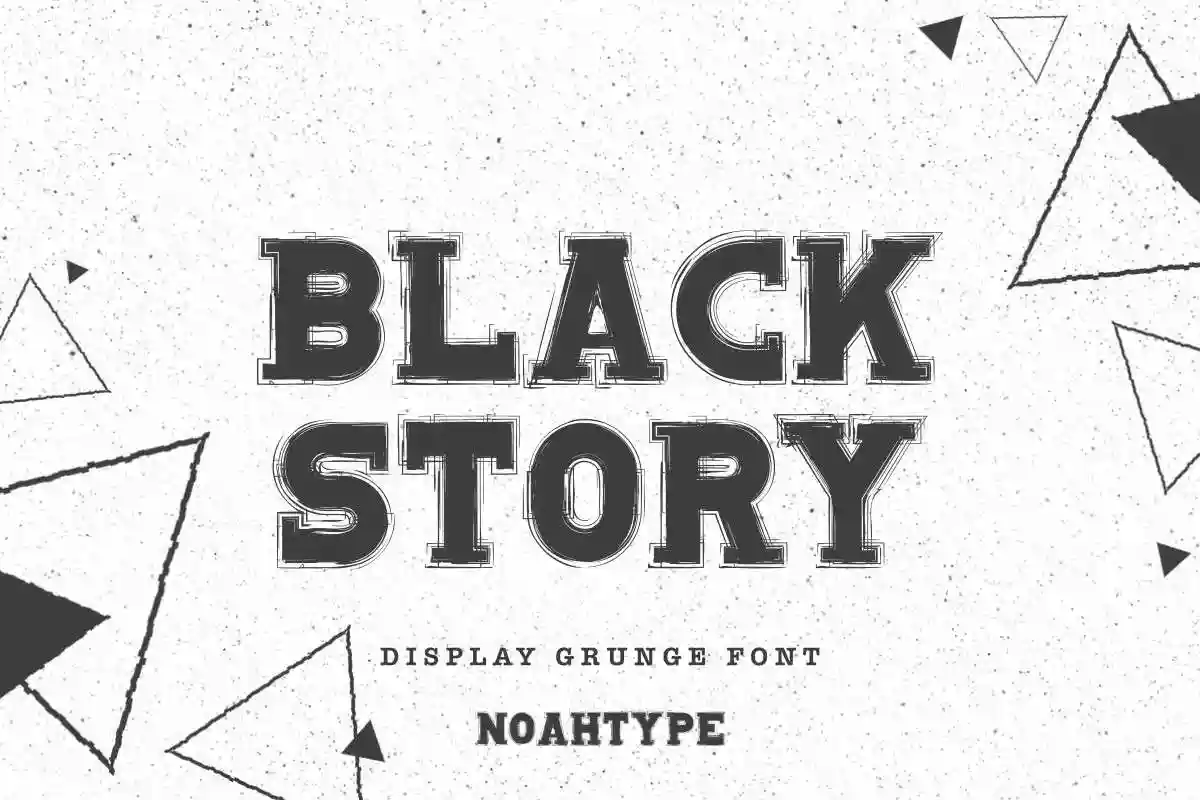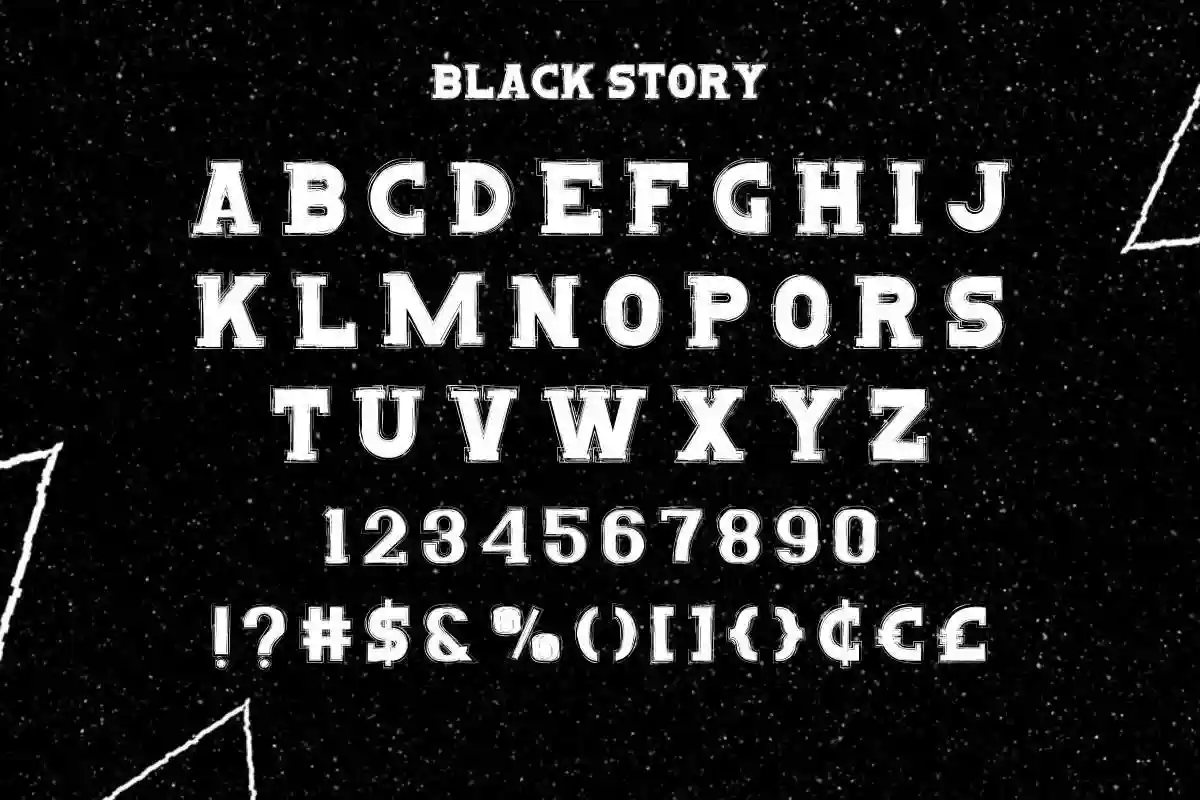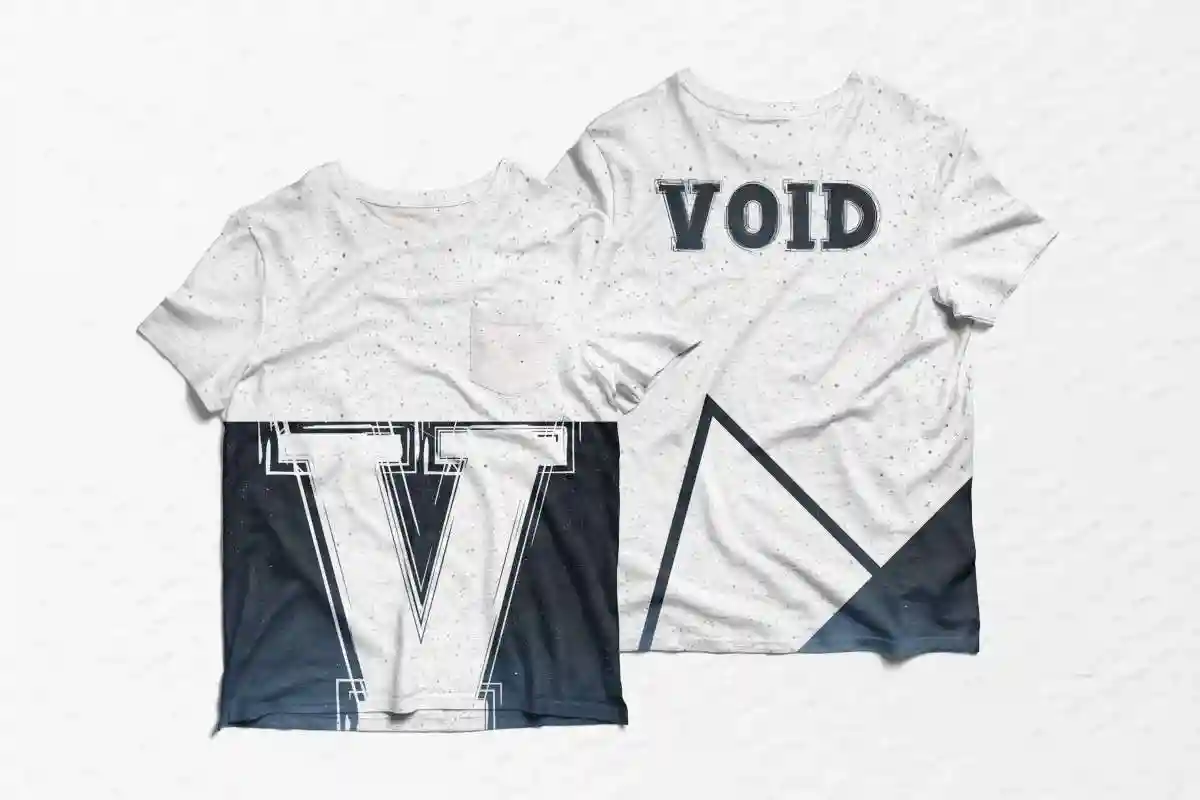
Black Story Font is an energic grunge display font with special effect on its letters. This font is inspired from Super Hero movies which comes awesome font effects. The font will be amazing for any project : Video games, movies, festival, music, sport, tournament, boxing, race, etc. Black Story Font is coming without lowecase, it us all Uppercases, Numerals and Punctuation. This font would be great to use any project that requires a strong special effect look!
Are you looking to bring raw energy and gritty style to your design projects? Meet Black Story Display Grunge Font – the ultimate choice for bold creatives, rebellious brands, and fearless designers who aren’t afraid to stand out.